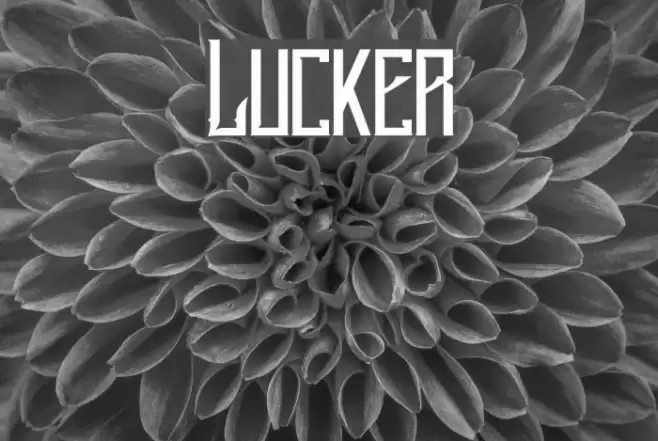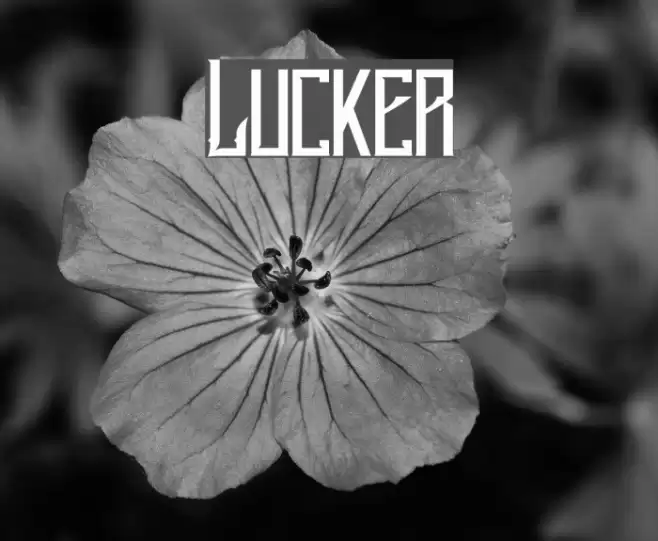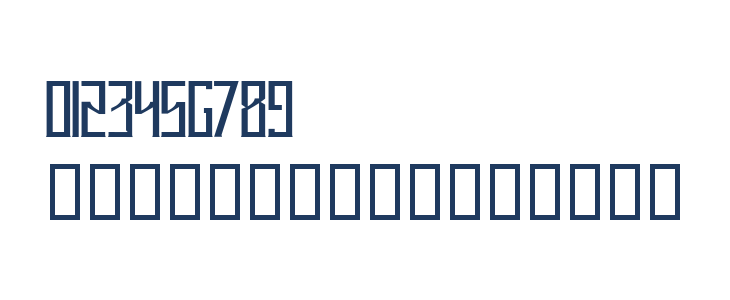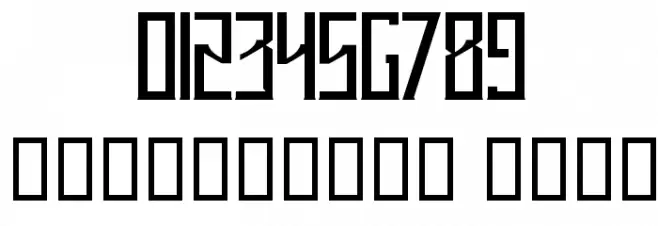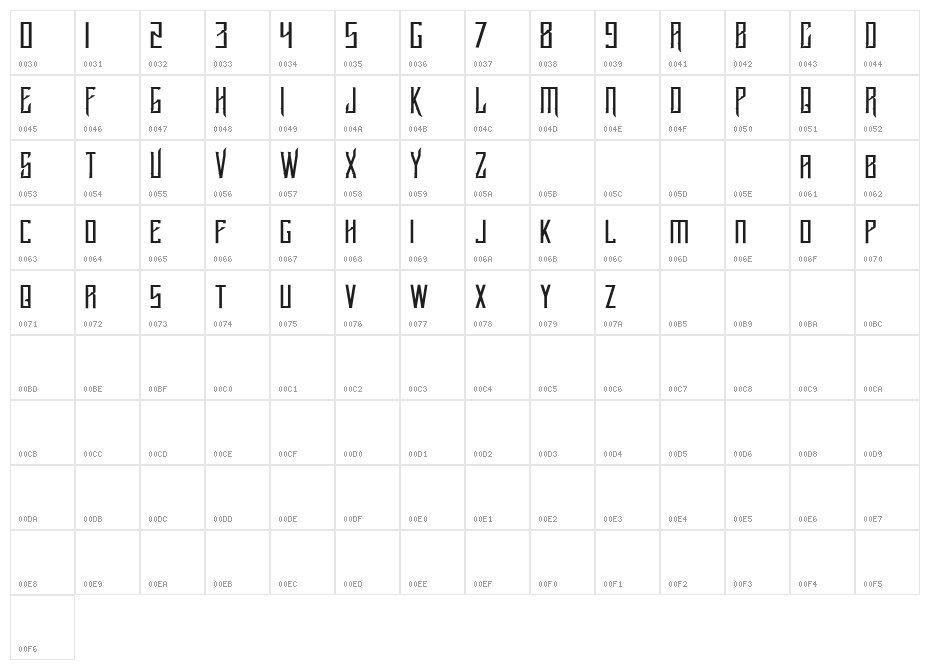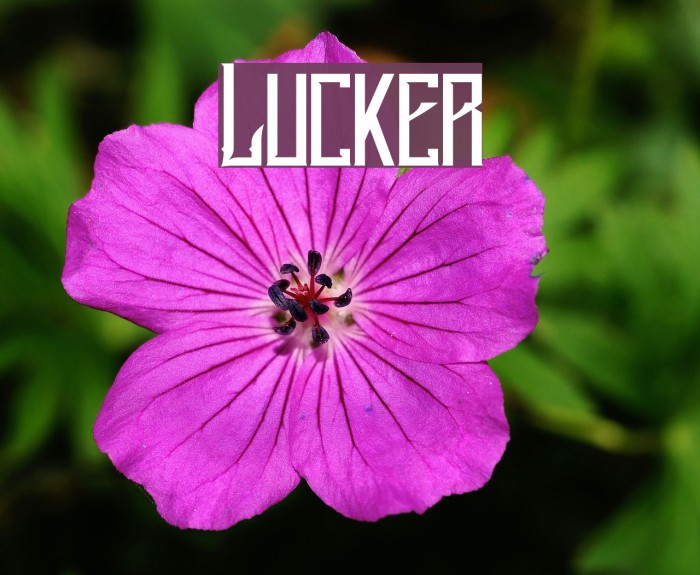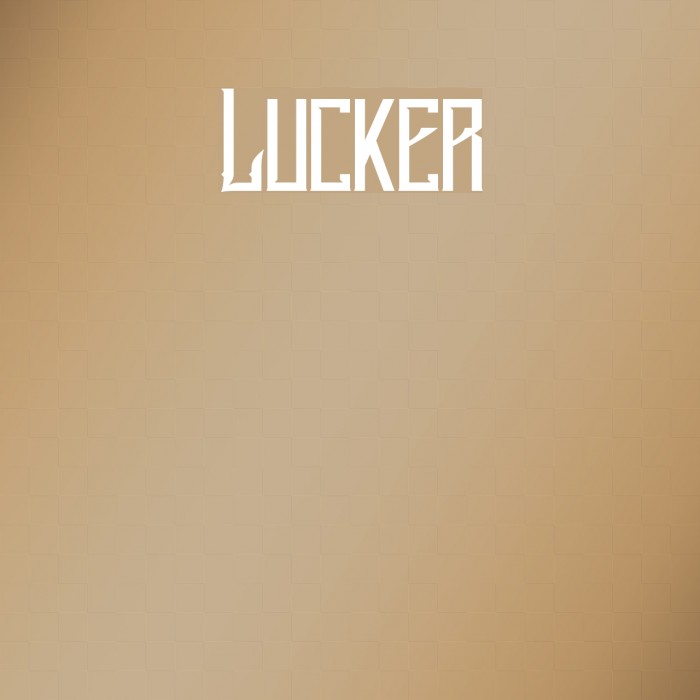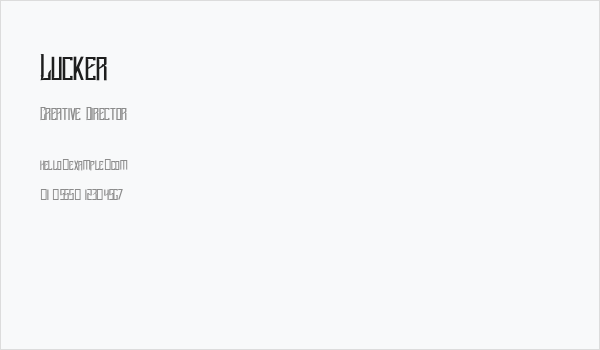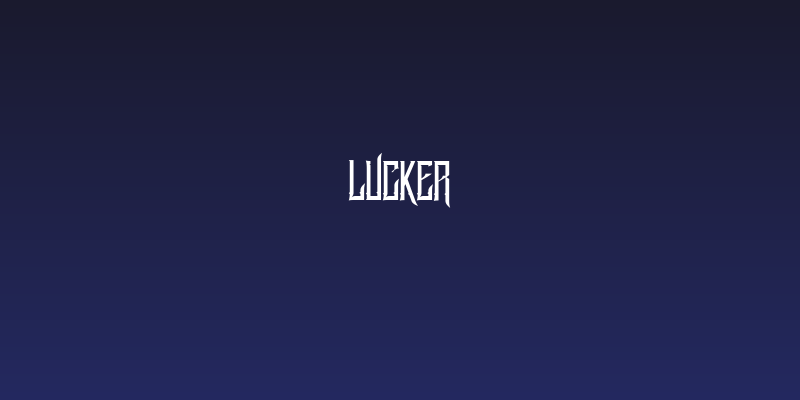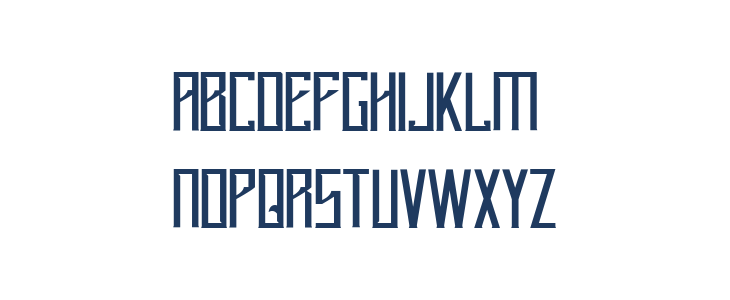
Lucker Font
Lucker Description
This font features a bold and angular design, characterized by sharp edges and a geometric structure. The uppercase letters exhibit a strong presence with their tall and narrow forms, while the lowercase letters maintain a consistent style, offering a cohesive look across the alphabet. The numerals are distinct and align well with the overall aesthetic, providing clarity and readability. Special characters are designed with the same attention to detail, ensuring they integrate seamlessly with the rest of the font. This typeface is ideal for projects that require a modern and edgy appearance, making it suitable for branding, posters, and headlines.
A bold, angular font with sharp edges and a geometric structure from Uncategorized fonts.